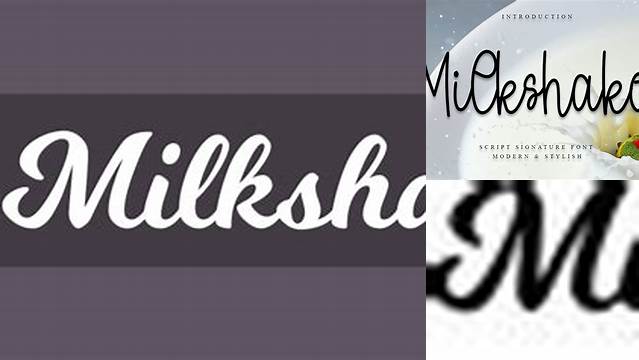
Fontsquirrel & Milkshake Font: A Design Guide
Explore the world of typography with Fontsquirrel, and let's specifically dive into the delightful Milkshake font. This article will provide you with everything you need to know about this charming typeface and explore the broader offerings of Fontsquirrel, a treasure trove for font enthusiasts. Get ready to enhance your design projects!
Unveiling the Charm of Milkshake Font
Guys, let's talk about Milkshake font! This isn't just any font; it's a personality. Milkshake is known for its playful and friendly vibe, making it a perfect choice for various design projects. Its rounded, slightly uneven strokes give it a handmade feel, adding a touch of whimsy and approachability. Think of it as the typography equivalent of a warm hug. This font is often used for branding, especially for businesses that want to project a lighthearted and inviting image. Imagine it gracing the logo of a boutique bakery, or perhaps the header of a fun blog about DIY crafts – it just fits! The casual style of Milkshake makes it ideal for headings, short paragraphs, and even quotes. It’s incredibly readable at various sizes, maintaining its character and appeal. This makes it incredibly versatile for digital and print media. Strong design projects are always looking for a font that stands out without being overbearing, and Milkshake strikes this balance wonderfully. Its unique characteristics make it a great option for creating a memorable impression. The font isn’t just pretty to look at; it's also extremely functional. Its readability makes it a winner. The design is easily incorporated into different projects. The font has an endearing charm. It’s a playful font. It is a good option for branding. The font is user friendly. Milkshake font is definitely a winner. It’s a great font, easy to incorporate. Milkshake is a must-have. It is an amazing font, and the design is great. The charm is also there, which makes it perfect. The characteristics of the font make it a good font choice. Its readability makes it easy to apply to the design project. Milkshake font stands out among many fonts, as its features are something unique. Milkshake is the best. This is a great font that everyone can use. Milkshake is an amazing font. It is a great font for your design. This font is easy to incorporate, which is a great feature. Milkshake can be used in almost any kind of design. Its uniqueness makes it stand out among all fonts. Milkshake is a very good option for a variety of projects. The font provides a handmade feel to the design.
Milkshake Font: Design Applications and Best Practices
When using Milkshake font in your designs, consider the context. This font shines in projects that aim for a friendly, approachable tone. It’s great for invitations, greeting cards, social media graphics, and websites targeting a younger audience or those with a playful aesthetic. Think about using it for headings and subheadings to create visual interest, but be mindful of its casual nature. Avoid using it for body text in large blocks, as the slightly irregular strokes can make it less readable for extended reading. Always prioritize readability. In terms of best practices, pair Milkshake with a clean, sans-serif font for body text to create a good balance between personality and functionality. Consider the color palette; Milkshake pairs well with soft, pastel colors to enhance its friendly feel. Avoid using it with overly complex or contrasting designs that might clash with its simple charm. Experiment with different sizes and weights to find what works best for your project. Strong usage of Milkshake also involves proper licensing and usage rights, something that Fontsquirrel makes easy to understand and implement. It is also important to choose the right font size for the design, depending on the size of the text. Milkshake is a great font choice. The font provides a friendly tone. The font provides a casual nature. It pairs well with pastel colors. Milkshake is good for invitations. Milkshake is a good font choice for digital media. The best practice involves choosing the right font size. Milkshake can also be a good choice for websites. This font provides a good balance between personality and functionality. Milkshake is a great choice for all kinds of projects. The font is user-friendly, and the design is amazing. It’s an amazing font. This font can be used with a variety of projects. Milkshake can be used to create visual interest for any project. Milkshake's nature is casual. Milkshake can enhance a friendly feel. Milkshake pairs well with any type of design. The color palette works well for Milkshake. The font provides a simple charm, which is a good characteristic. This font can easily be applied to any project.